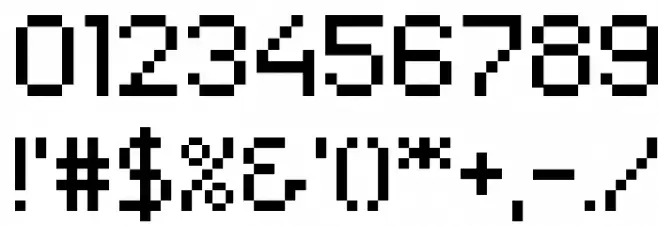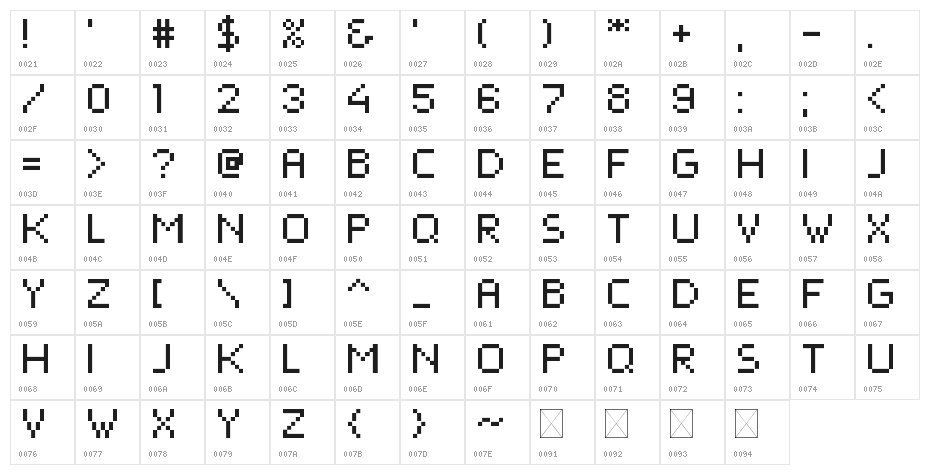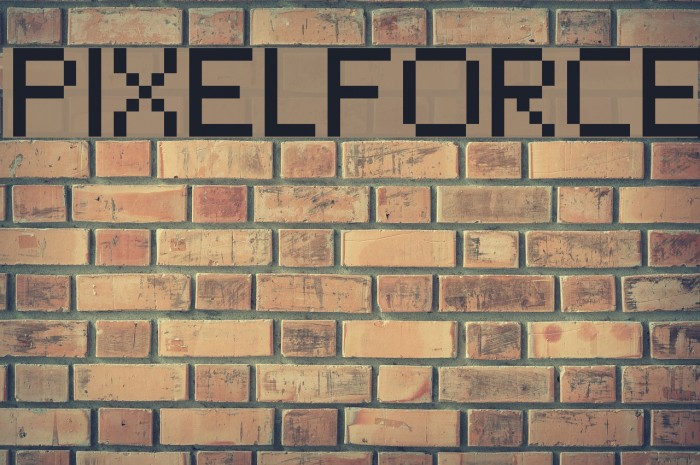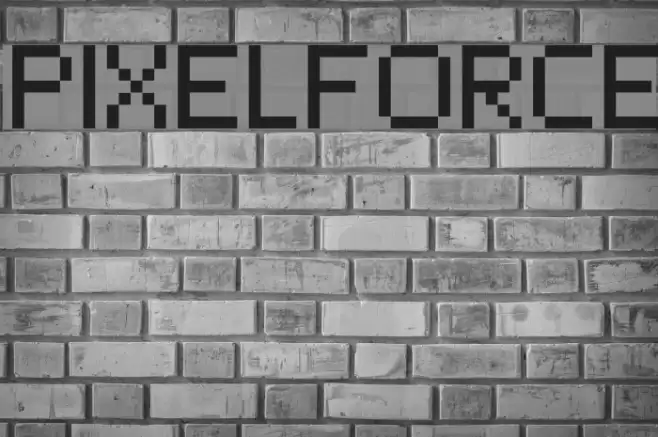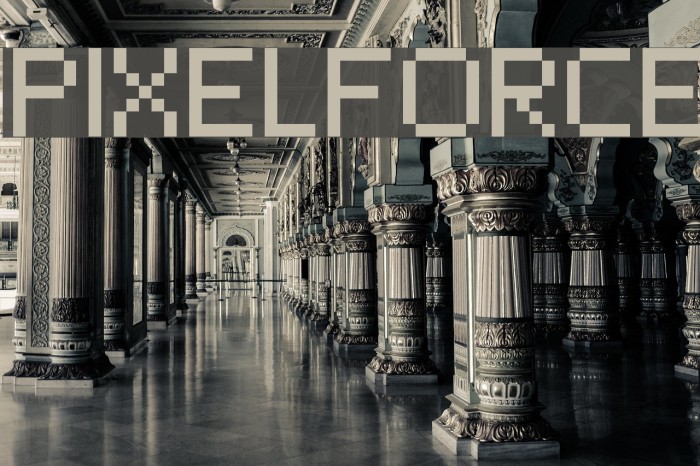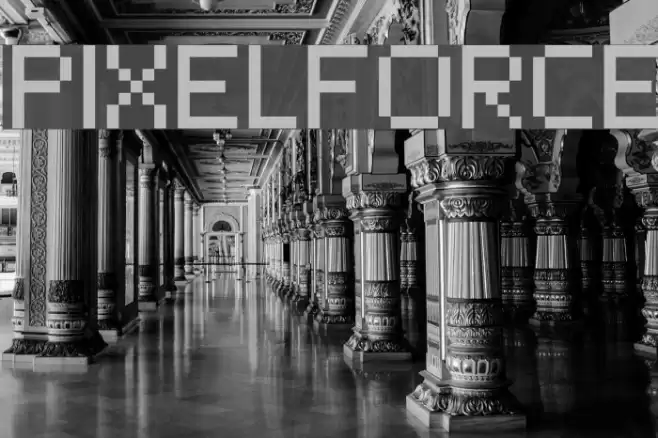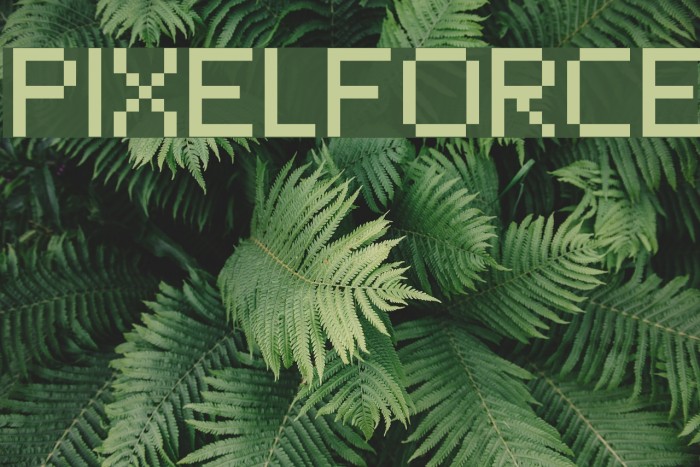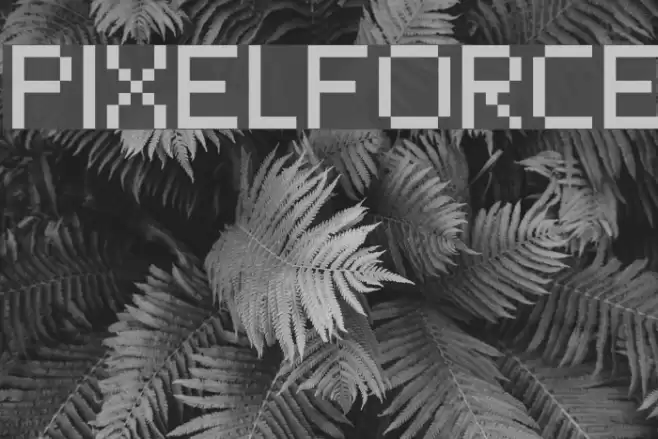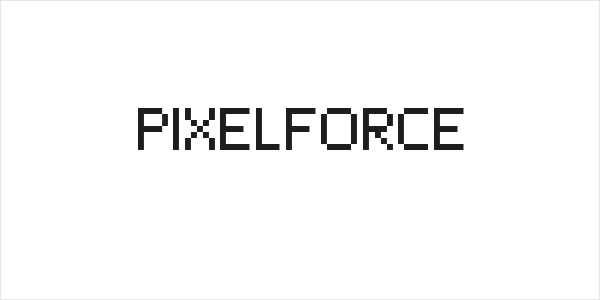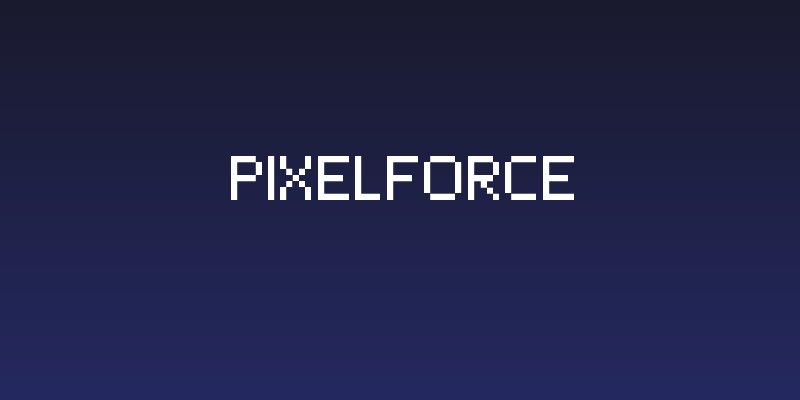
PixelForce Font
PixelForce Description
This font features a pixelated, blocky design reminiscent of early digital displays and video games. Each character is constructed from a grid of squares, giving it a distinctly retro and digital aesthetic. The uniformity in the height and width of the characters creates a cohesive and structured appearance. The uppercase and lowercase letters maintain a consistent style, with clear differentiation between similar characters. The numerals and special characters are equally well-defined, ensuring readability and visual appeal. This font's nostalgic charm makes it ideal for projects that aim to evoke a sense of classic gaming or digital nostalgia.
| Proposed Projects | Ideal for video game design, retro-themed graphics, digital art, and tech-related branding. |